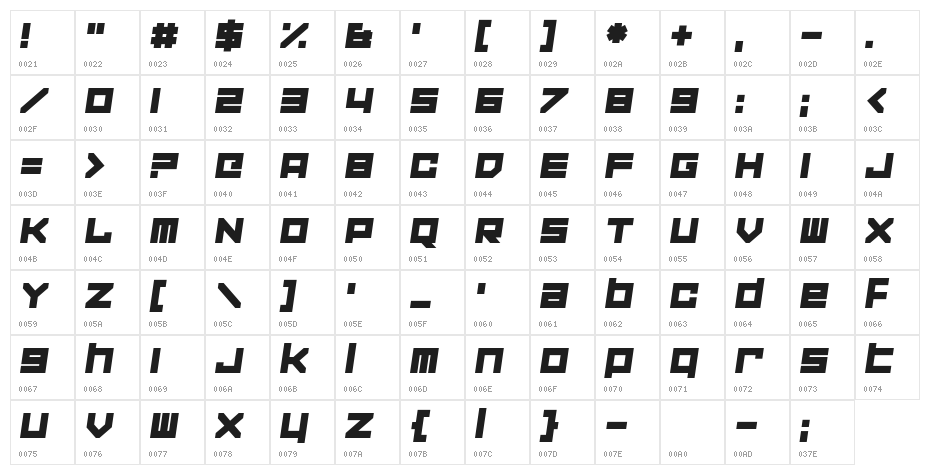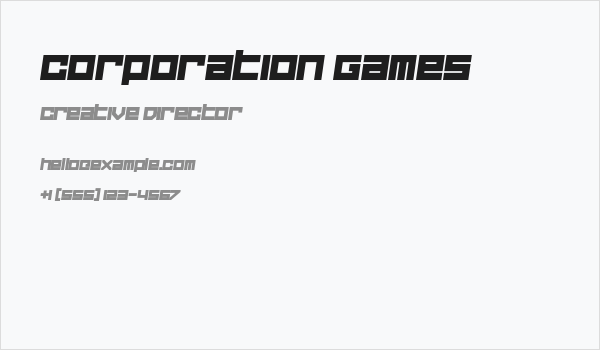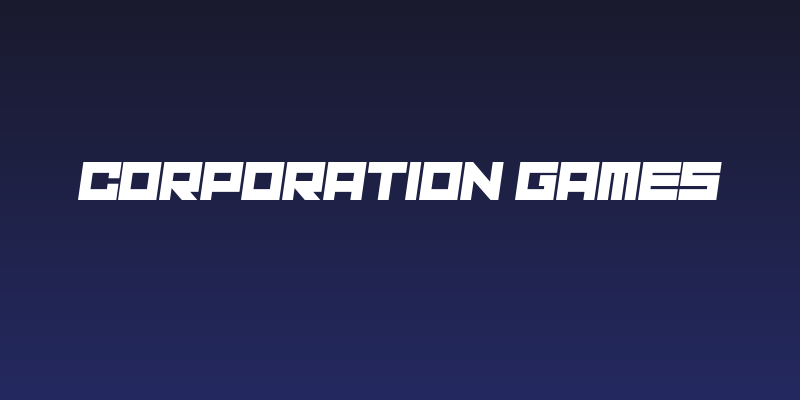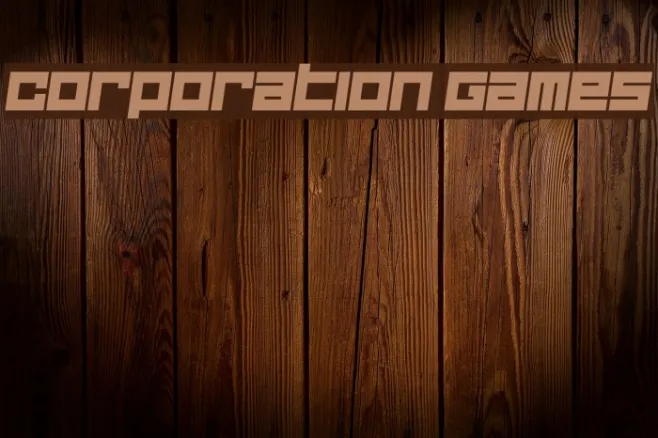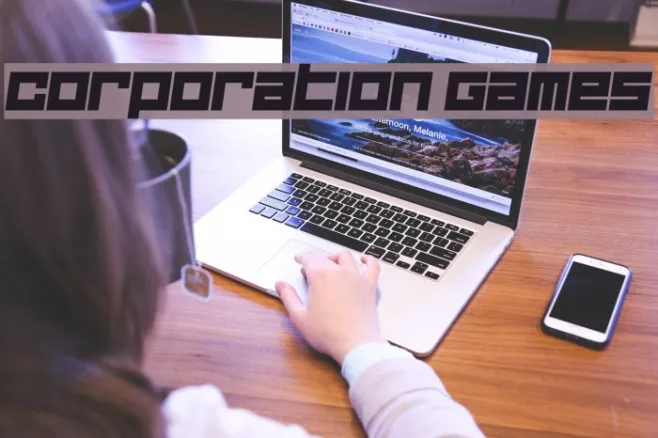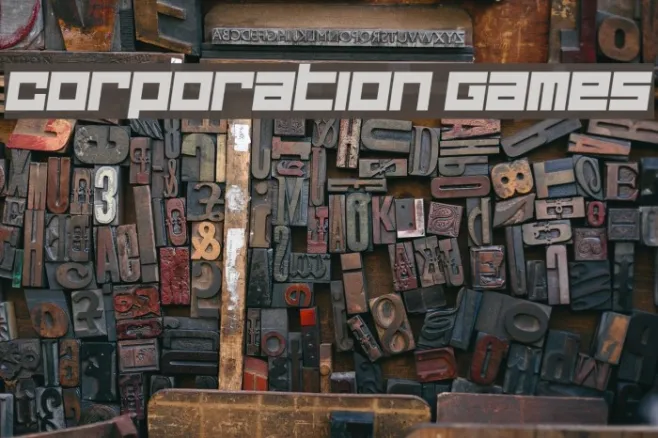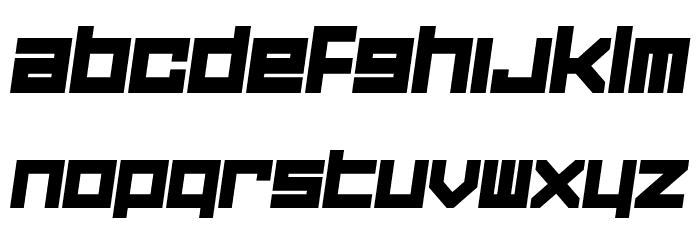
Corporation Games Font
Corporation Games Description
This font features a bold, futuristic design with sharp angles and a geometric structure. The uppercase letters are blocky and dynamic, creating a sense of movement and modernity. Lowercase letters maintain the same angular style, ensuring consistency across the typeface. Numbers and special characters are designed to match the bold aesthetic, making them stand out with clarity and impact. The overall appearance is sleek and powerful, suitable for projects that require a strong visual presence.
| Proposed Projects | Ideal for video game titles, tech company logos, futuristic posters, and digital media branding. |